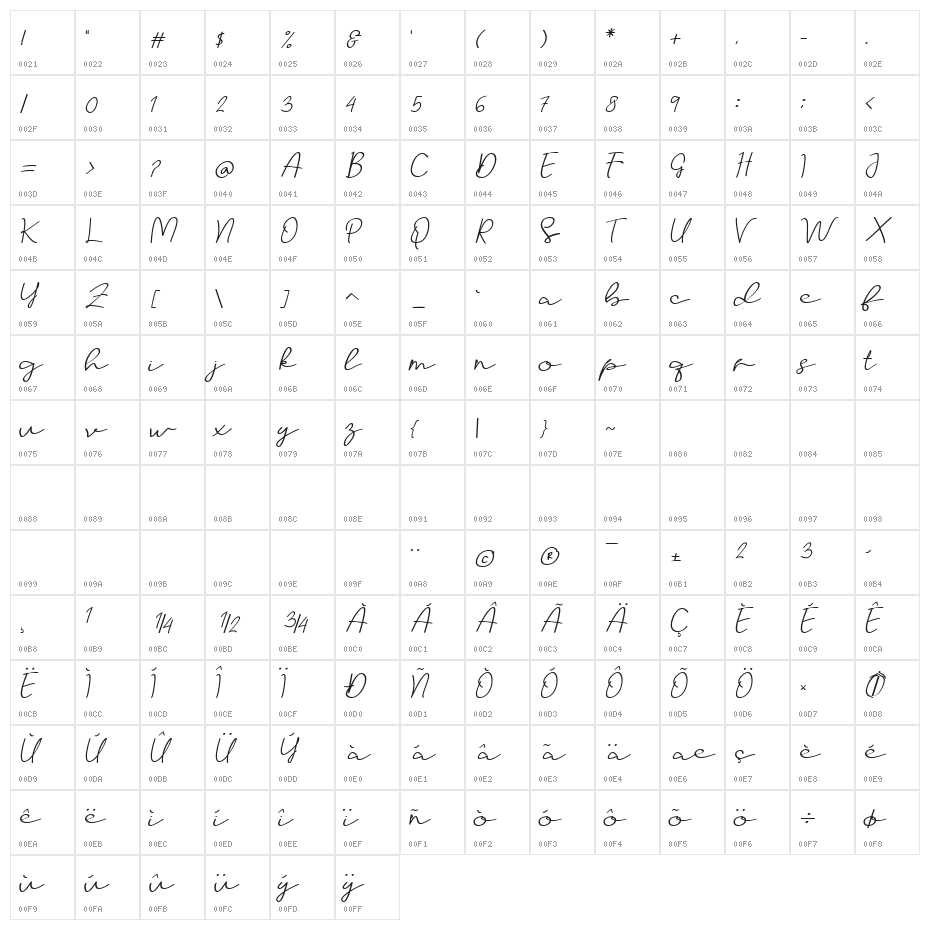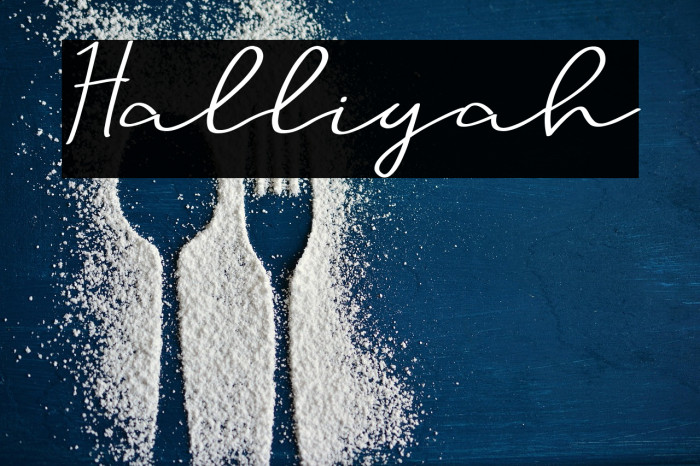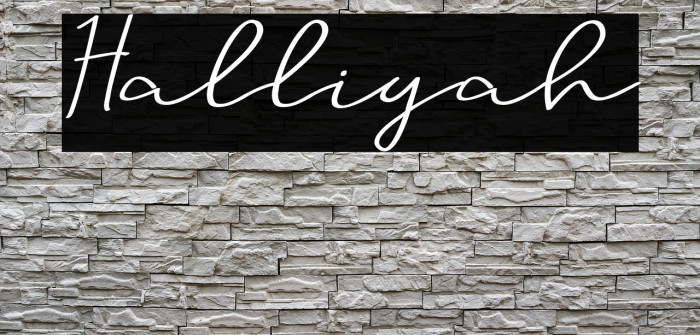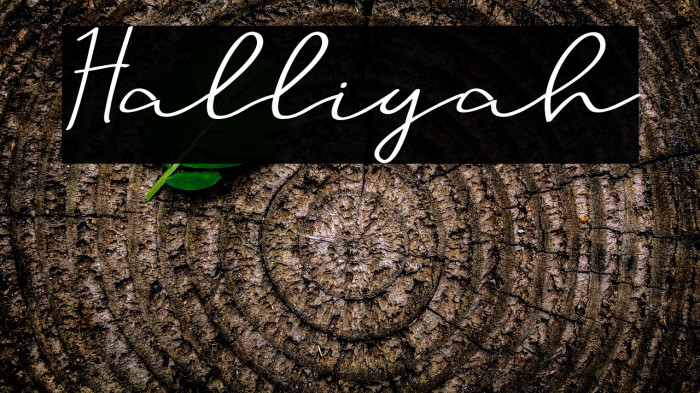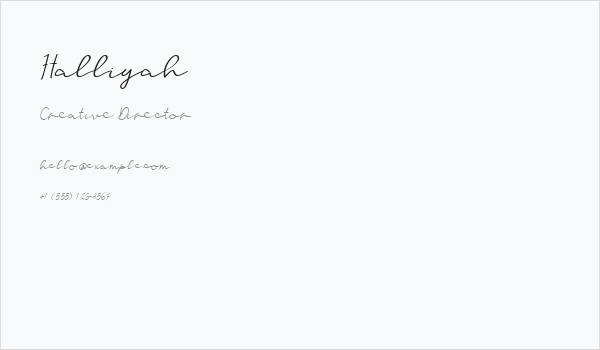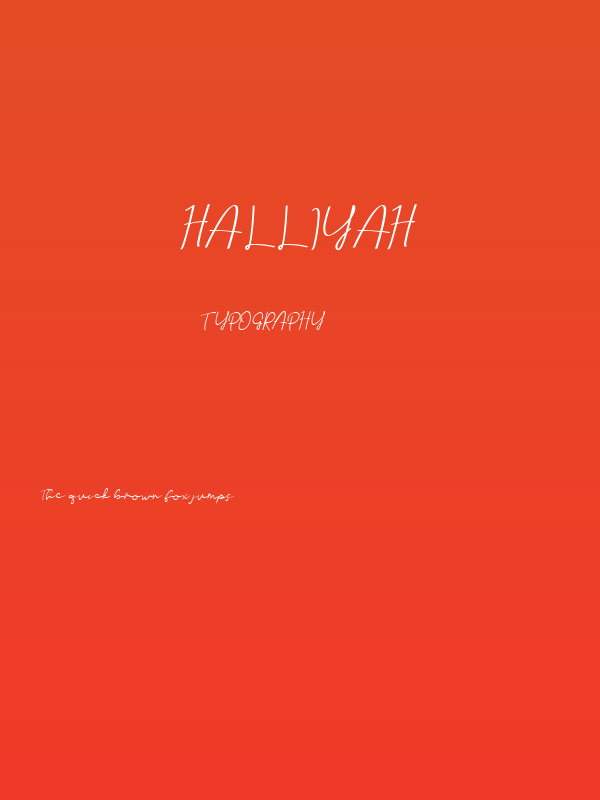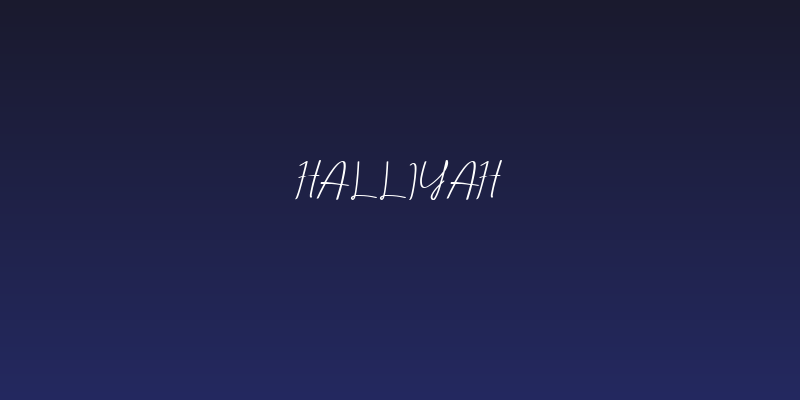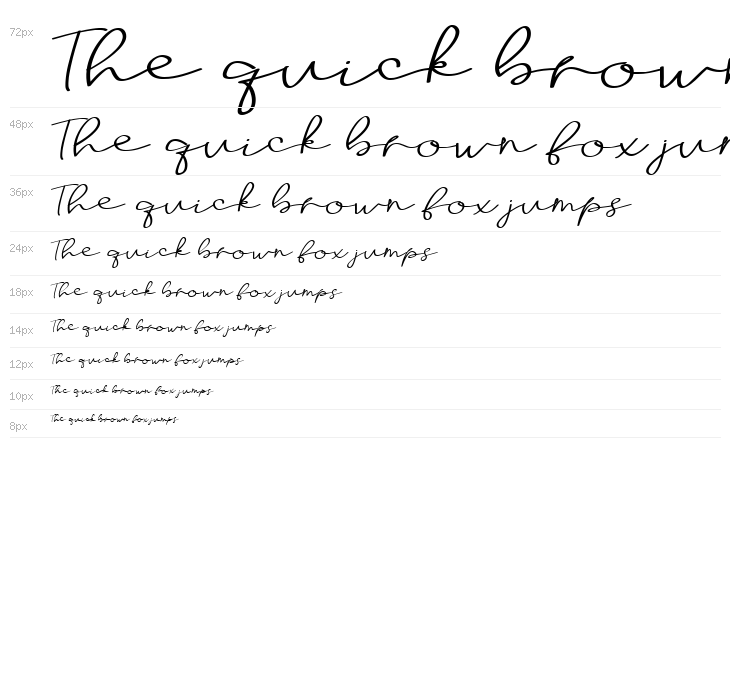
Halliyah Font
Halliyah Description
This elegant script font features a flowing, cursive style that mimics natural handwriting. The letters are connected in a fluid manner, giving it a graceful and sophisticated appearance. The uppercase letters are slightly more structured, while the lowercase letters exhibit a more relaxed and freeform style. The numerals and special characters maintain the same fluidity, ensuring consistency throughout. The font's delicate strokes and smooth curves make it ideal for projects that require a personal touch. Its overall design is both modern and timeless, suitable for a variety of creative applications.
| Overall Style | Elegant, Modern |
| Proposed Projects | Ideal for wedding invitations, greeting cards, personal branding, and elegant packaging designs. |